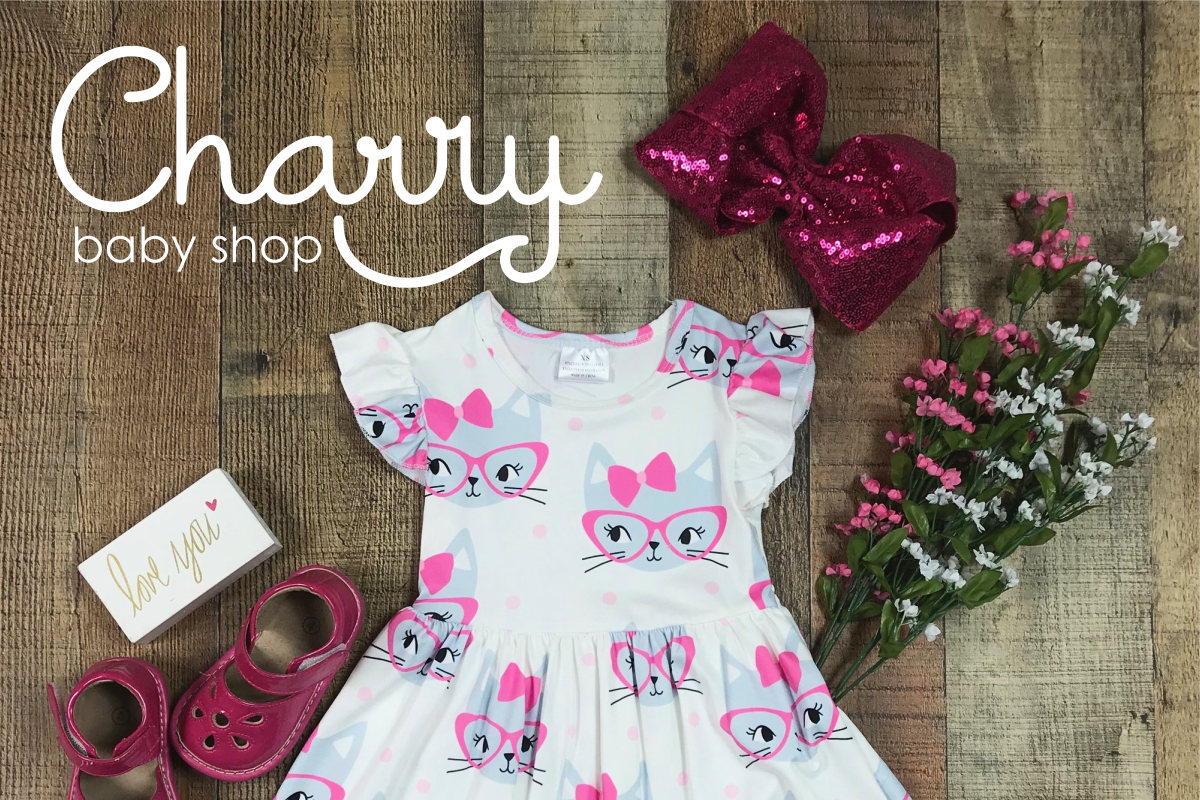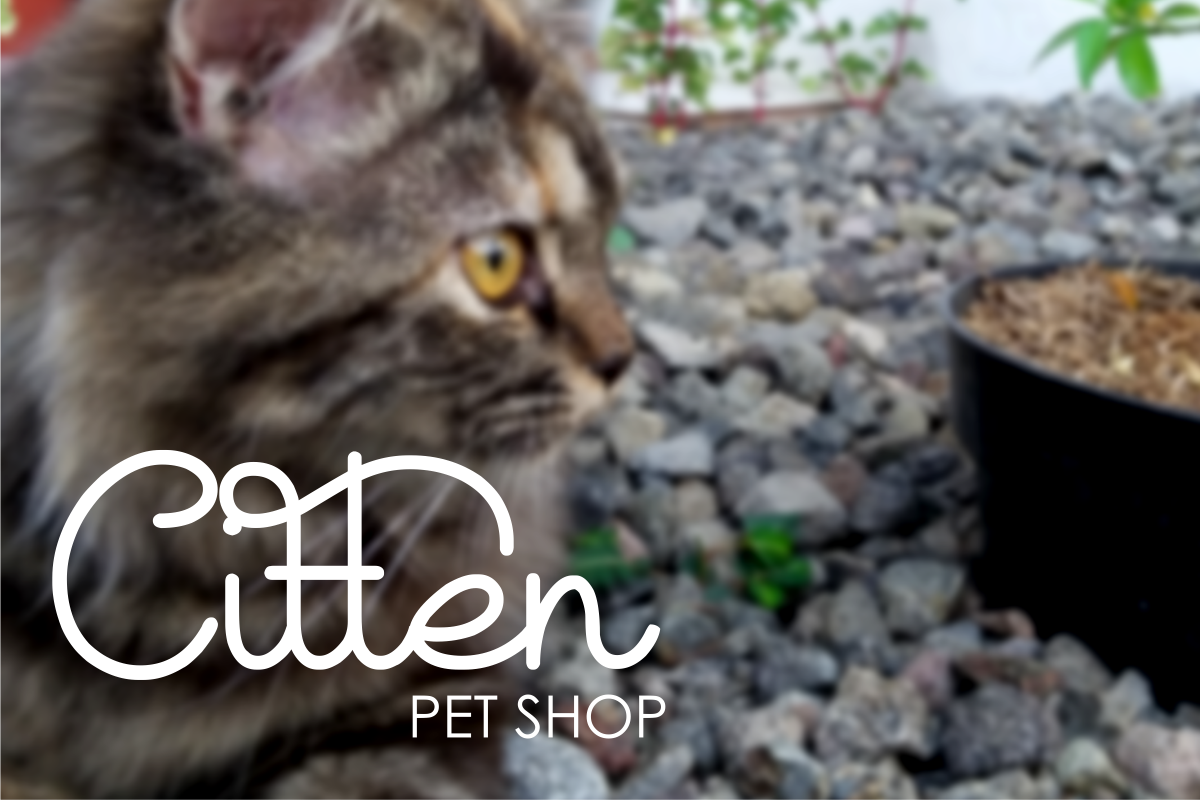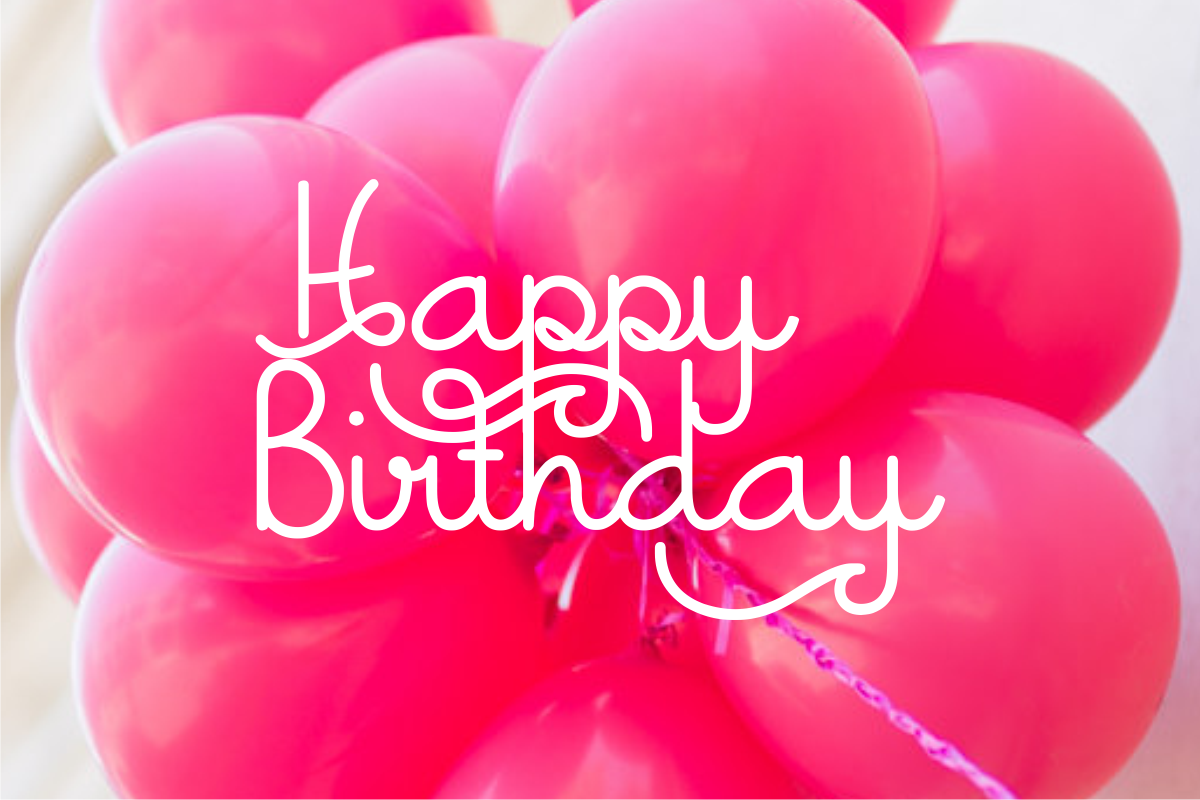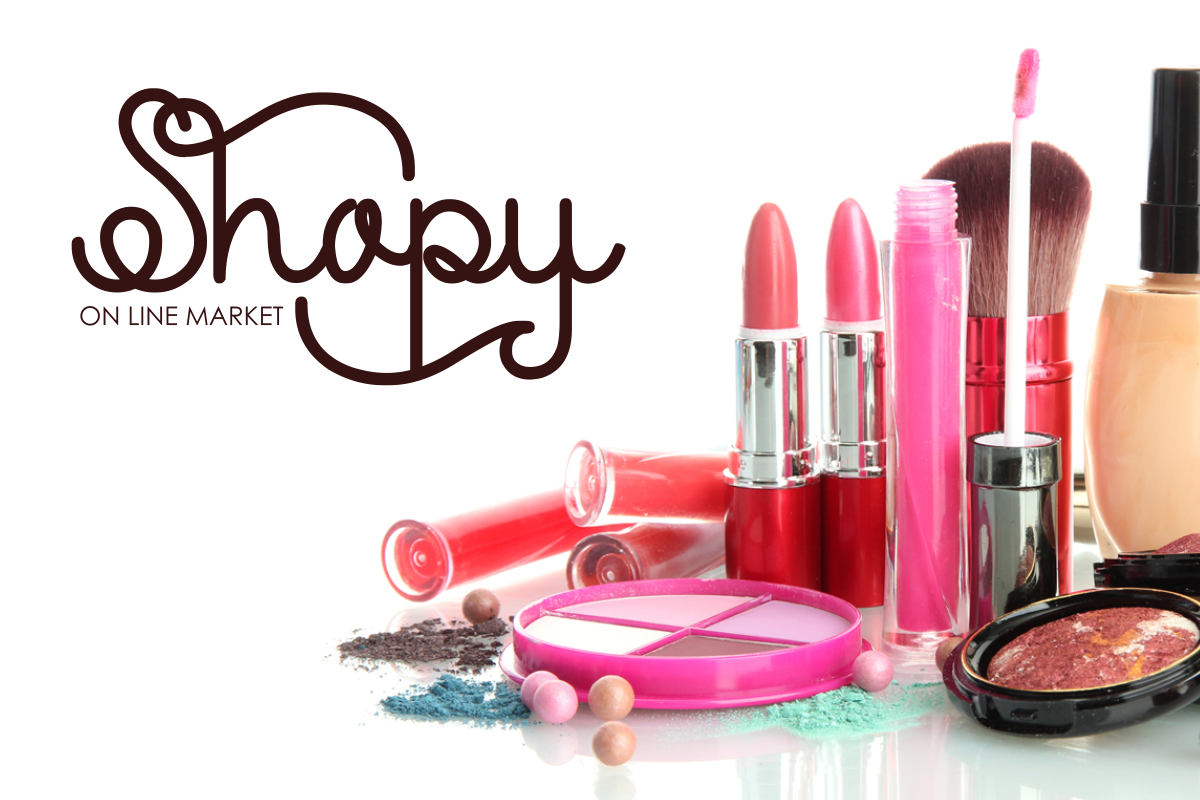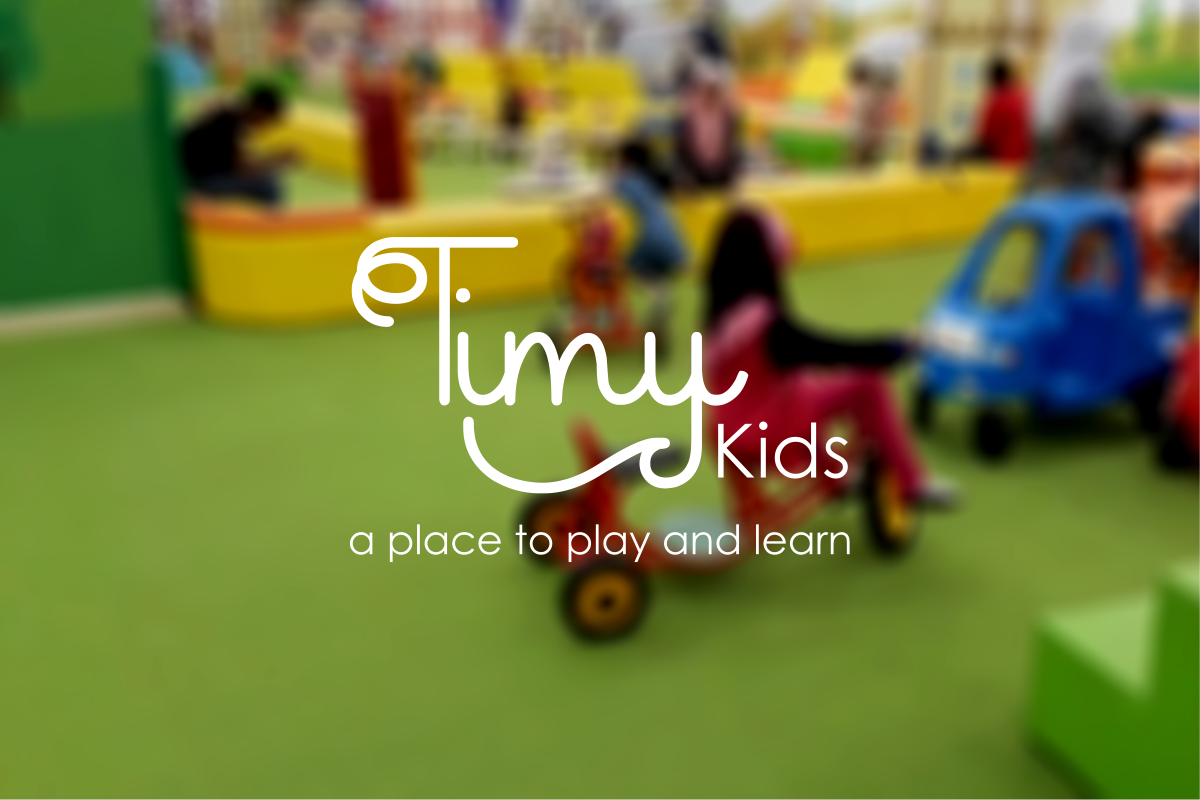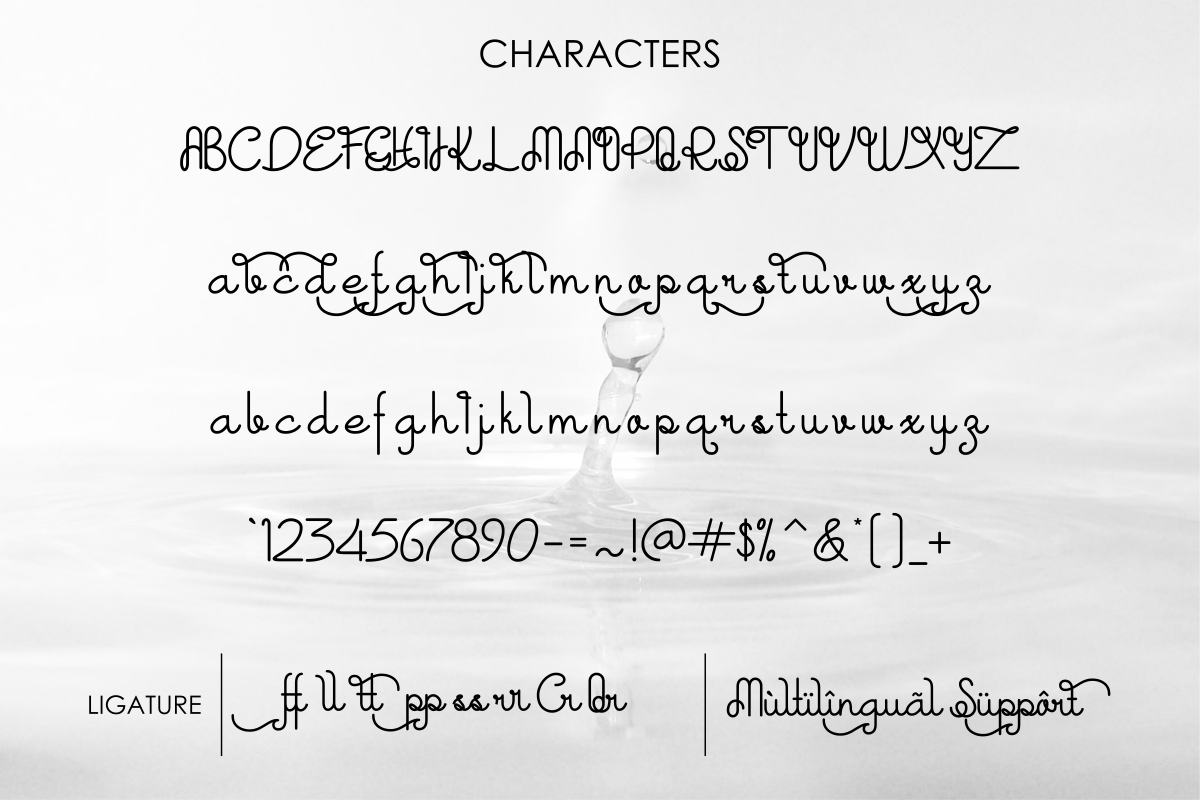
Banyu Bening Font: A Handcrafted Cursive Typeface with Endless Charm
In the world of typography, few fonts manage to capture the essence of elegance and playfulness simultaneously. Banyu Bening, a handcrafted cursive typeface, is one such gem that has been making waves in the design community. With its unique blend of swooped curves and monoline weight, Banyu Bening is perfect for creating stunning headlines and statement pieces of typographic work.
The Story Behind Banyu Bening
Banyu Bening is more than just a font; it’s a work of art that tells a story. The brainchild of talented designers, this typeface is a result of meticulous craftsmanship and attention to detail. Every letter, every curve, and every line has been carefully handcrafted to give Banyu Bening its distinctive character. The result is a font that exudes a sense of sophistication and whimsy at the same time.
What Makes Banyu Bening Special?
So, what sets Banyu Bening apart from other fonts? Here are a few features that make it a standout:
- Handcrafted with love: Banyu Bening is a true labor of love. Every letterform has been meticulously crafted by hand, giving it a unique, organic feel.
- Playful yet crisp: The font’s swooped curves and monoline weight give it a playful, yet crisp feel that’s perfect for headlines and typographic statements.
- Endless character: Banyu Bening has oodles of character, making it perfect for designers who want to add a touch of personality to their work.
- Versatile: Whether you’re working on a branding project, a website, or a print design, Banyu Bening can be used in a variety of contexts.
Perfect for Headlines and Statement Pieces
Banyu Bening is specifically designed for headlines and statement pieces of typographic work. Its bold, cursive lines and swooped curves make it perfect for grabbing attention and adding a touch of drama to your designs. Whether you’re creating a logo, a billboard, or a social media graphic, Banyu Bening is sure to make a statement.
Why Designers and Crafters Love Banyu Bening
Designers and crafters alike are drawn to Banyu Bening for its unique blend of elegance and playfulness. Here are a few reasons why:
- Unique style: Banyu Bening offers a fresh, unique style that’s hard to find in other fonts.
- Ease of use: Despite its complex appearance, Banyu Bening is surprisingly easy to use, even for those who are new to typography.
- High-quality design: The font is designed with high-quality craftsmanship in mind, making it perfect for professional designers and crafters.
Tips for Using Banyu Bening
To get the most out of Banyu Bening, here are a few tips:
- Use it sparingly: Banyu Bening is a bold font, so use it sparingly to make a maximum impact.
- Experiment with colors: The font looks great in a variety of colors, so don’t be afraid to experiment and find the perfect hue for your design.
- Pair it with other fonts: Banyu Bening can be paired with other fonts to create a unique, multi-font design.
Banyu Bening is a handcrafted cursive typeface that’s perfect for designers and crafters looking to add a touch of elegance and playfulness to their work. With its unique blend of swooped curves and monoline weight, Banyu Bening is sure to make a statement in any design. Whether you’re working on a headline, a logo, or a typographic statement piece, Banyu Bening is the perfect choice.